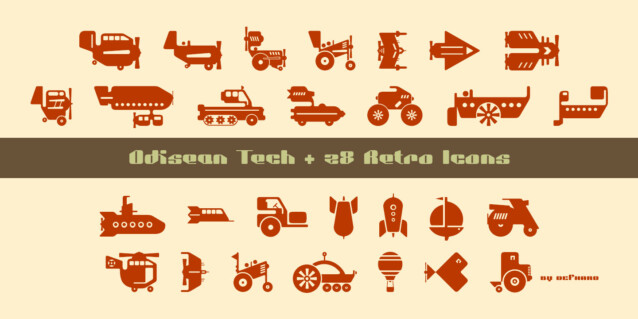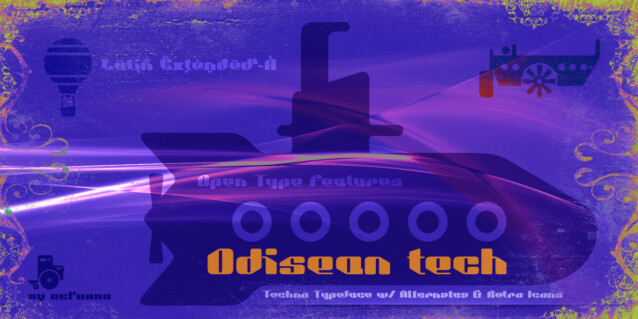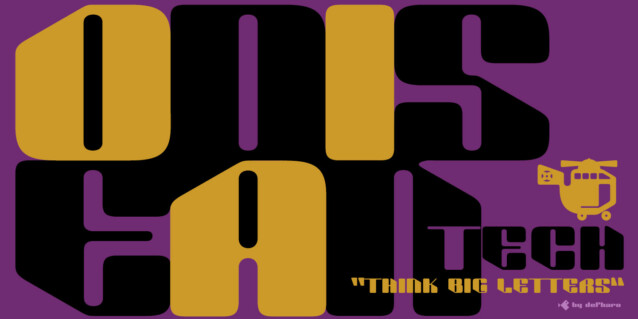
Odisean Tech Font is designed for large sizes with retro style, including alternative lettering and retro transportation icons. Odisean Tech will transport you to a bygone era with its retro charm, offering you alternative lyrics that evoke the aesthetic of the golden and happy years.
– Odisean Tech for those who love technology and innovation, the font is full of graphic elements and retro transportation icons, which will immerse you in a futuristic world of the past.